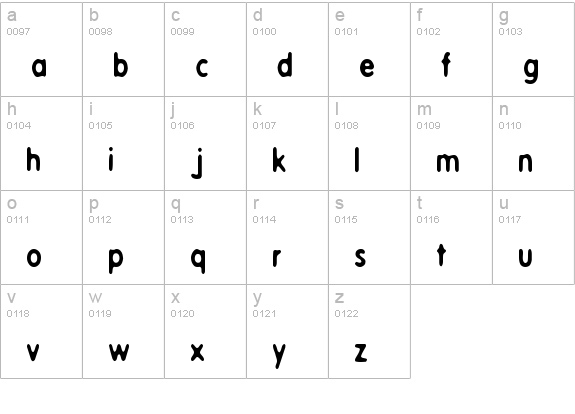
Whoosit Font Details
Introducing the mesmerizing Whoosit font, a captivating typeface that will instantly elevate your design projects to new heights. With its unique and intricate letterforms, this font is bound to catch the eye and leave a lasting impression on your audience. Whoosit font is the perfect blend of modernity and elegance, making it suitable for a wide range of applications. Whether you're designing a logo, creating eye-catching headlines, or crafting stunning invitations, this font will bring a touch of sophistication to your work. What makes Whoosit font even more remarkable is that it is available for free! Yes, you heard it right – this extraordinary font can be downloaded at no cost from FontsMarket.com. We believe in democratizing design and making high-quality resources accessible to all, which is why we are thrilled to offer this incredible font for free. Not only does Whoosit font offer exceptional aesthetics, but it is also incredibly versatile. It comes in a variety of weights and styles, allowing you to experiment and find the perfect fit for your project. Whether you prefer a bold and impactful look or a more delicate and refined one, Whoosit font has got you covered. With its smooth curves and impeccable attention to detail, this font guarantees a seamless and visually pleasing reading experience. Each character has been meticulously crafted to ensure legibility, even at smaller sizes. Say goodbye to blurry or jagged edges – Whoosit font delivers crisp and clear typography every time. So why wait? Unlock your creative potential and let Whoosit font breathe life into your designs. Download it for free at FontsMarket.com and experience the endless possibilities that this extraordinary font has to offer. Get ready to impress and captivate with Whoosit font – the font that sets your design apart from the rest.